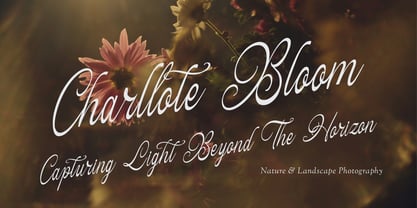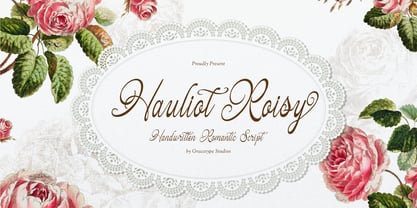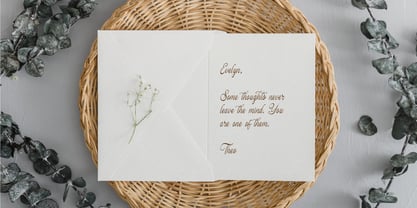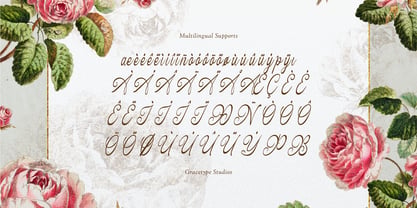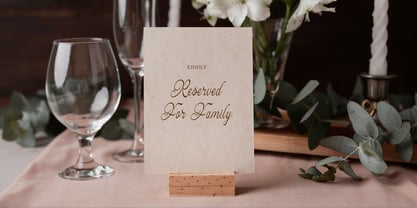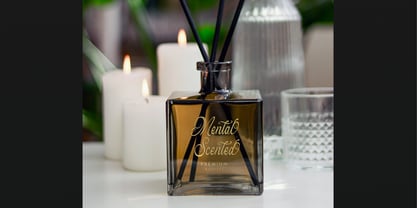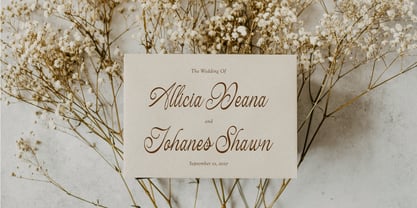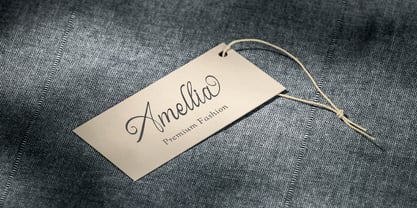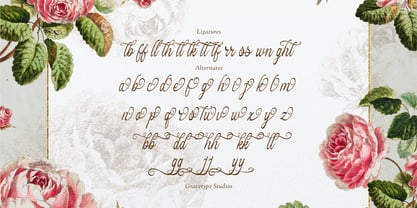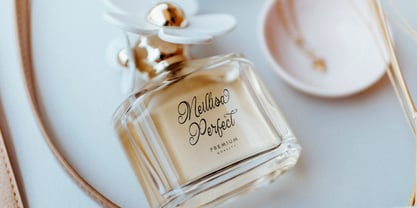
Hauliot Roisy
by Tini Fitriani
Hauliot Roisy | Handwritten Romantic, from Gracetypestudio, suitable for any projects such as: logos, branding projects, homeware designs, product packaging, mugs, quotes, posters, shopping bags, t-shirts, book covers, name card, invitation cards, greeting cards, label, photography, watermark, special events, and all your other lovely projects that need a Script taste.